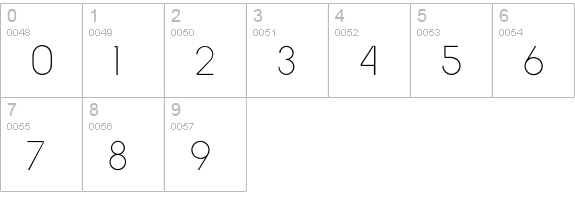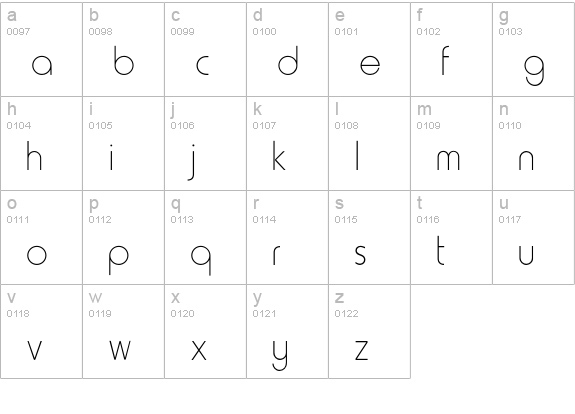
HarryThin Font Details
Introducing HarryThin, the sleek and sophisticated font that effortlessly combines elegance with minimalism. This meticulously crafted typeface is perfect for those seeking a contemporary and refined look in their designs. With its slender and graceful letterforms, HarryThin adds a touch of sophistication to any project, whether it be a stylish logo, a chic invitation, or a modern website. But what sets HarryThin apart from other fonts is its accessibility. It is not only aesthetically pleasing but also freely available to download at FontsMarket.com. This means that designers, creatives, and enthusiasts alike can enjoy the beauty of HarryThin without any barriers. This free availability allows for unlimited creativity and experimentation, making it an invaluable asset to any designer's toolkit. HarryThin's versatility is another aspect that makes it truly remarkable. Its clean and crisp lines make it highly readable even at small sizes, while its delicate strokes add a touch of elegance to larger display applications. The font's timeless appeal ensures that it remains relevant and captivating in any design context, whether it be in print or digital media. Furthermore, HarryThin supports a wide range of languages, ensuring that it can be used by designers from all across the globe. This inclusivity adds to its appeal and makes it a go-to choice for international projects. In conclusion, HarryThin is not just a font, but a design companion that effortlessly adds a touch of refinement and sophistication to any project. And with its free availability at FontsMarket.com, there's no reason not to indulge in its beauty and unleash your creativity. So go ahead, download HarryThin today and elevate your designs to new heights.